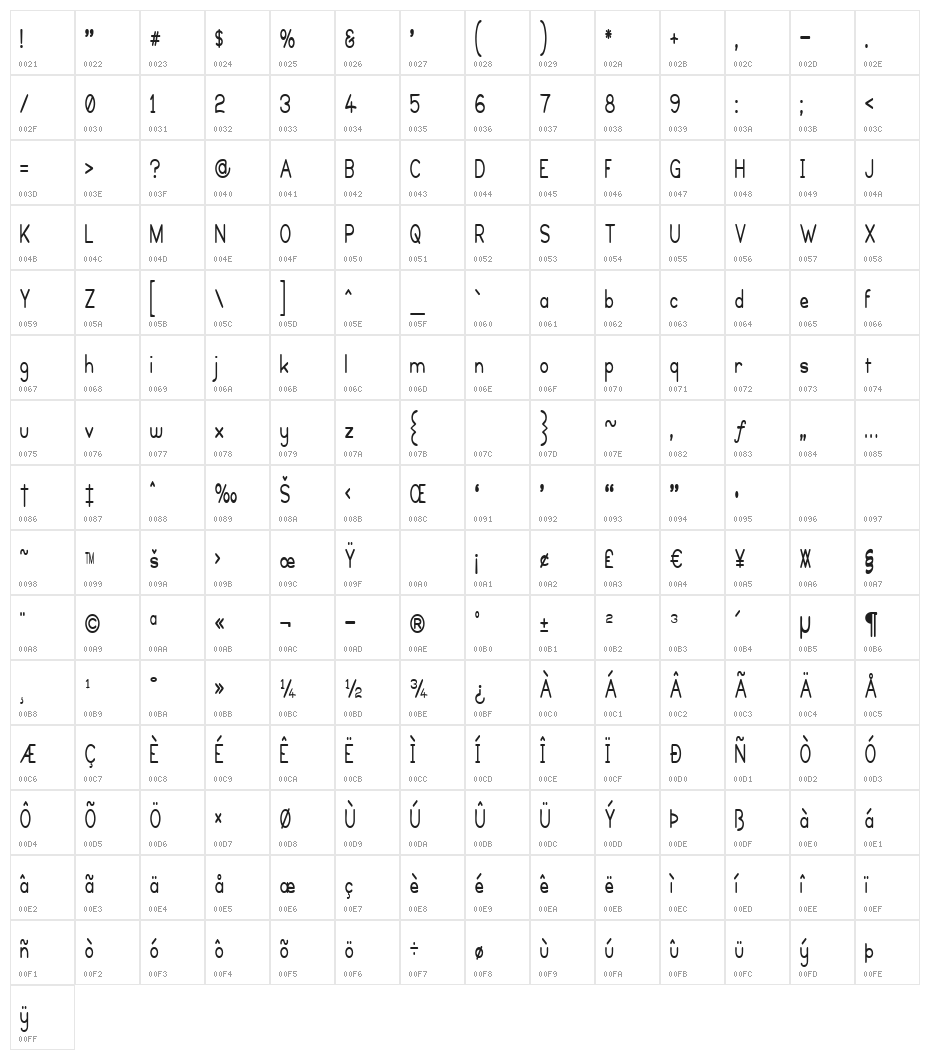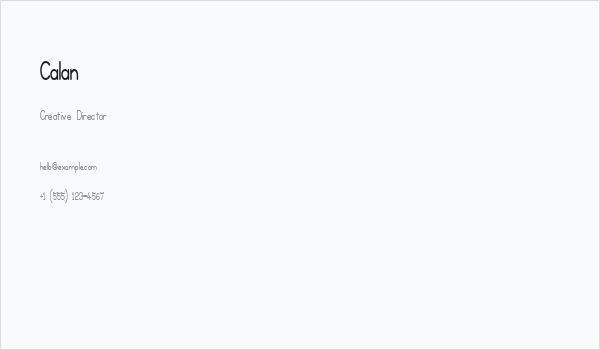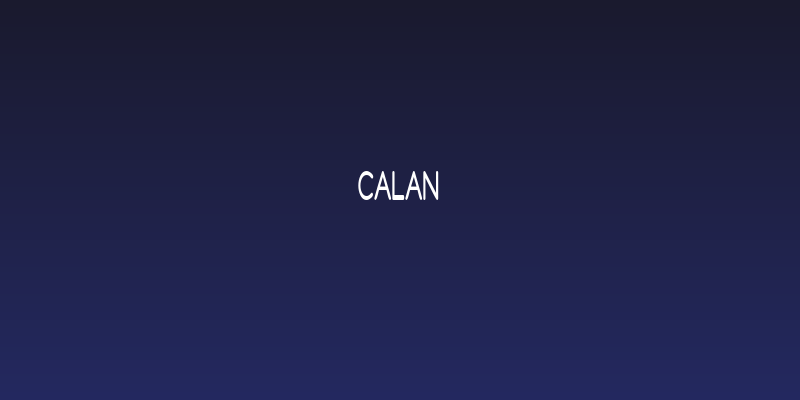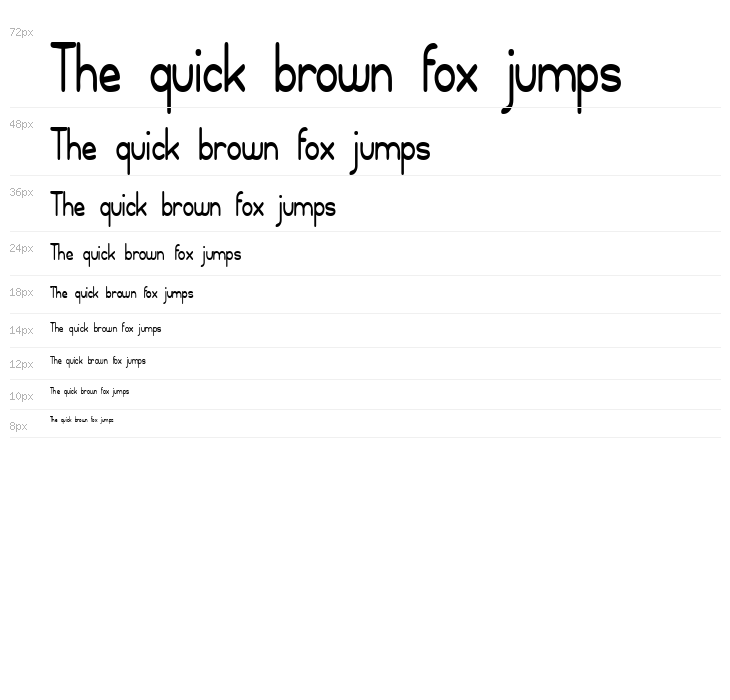
Calan Font
Calan Description
This font features a playful and rounded style, characterized by its smooth curves and friendly appearance. The letters are evenly spaced, providing a clean and approachable look. The uppercase and lowercase letters maintain a consistent design, with rounded edges that give a soft and inviting feel. The numerals and special characters follow the same design principles, ensuring uniformity across the font. This style is ideal for projects that require a casual and informal tone, making it suitable for children's books, playful branding, and creative designs.
| Proposed Projects | Children's books, playful branding, creative designs, informal invitations. |